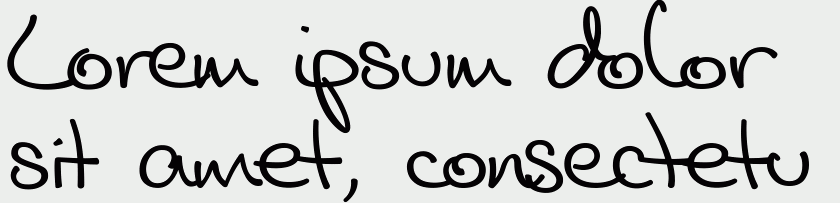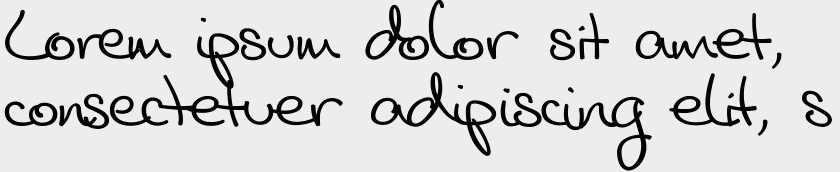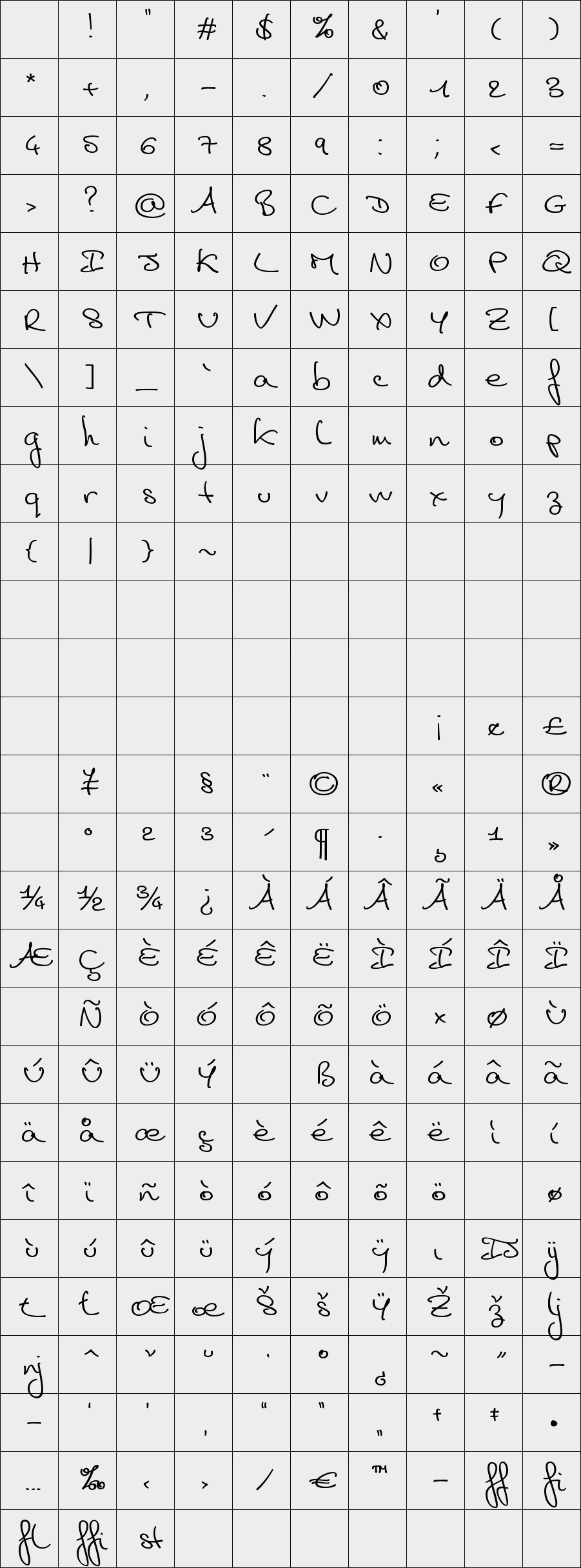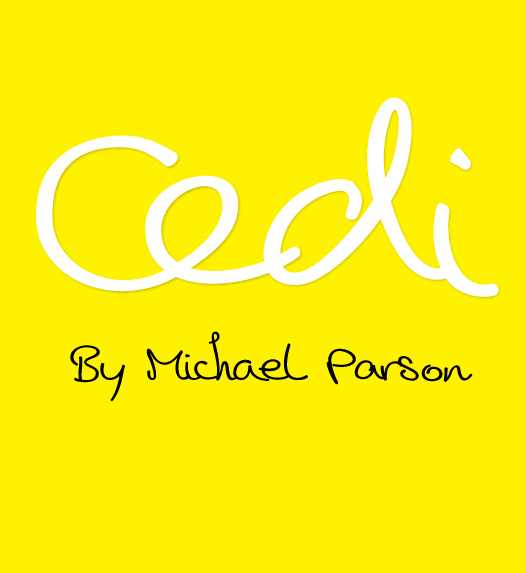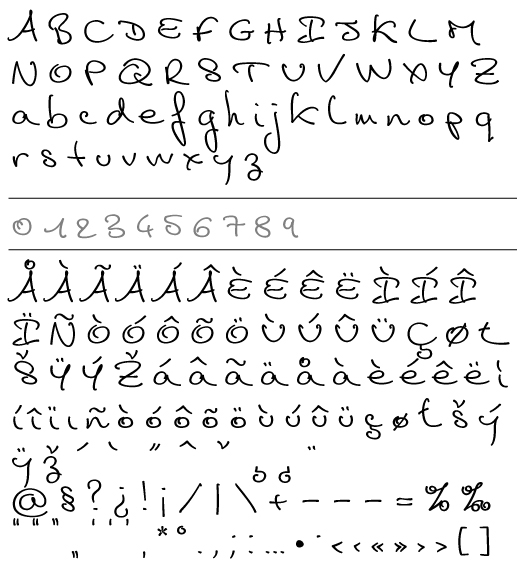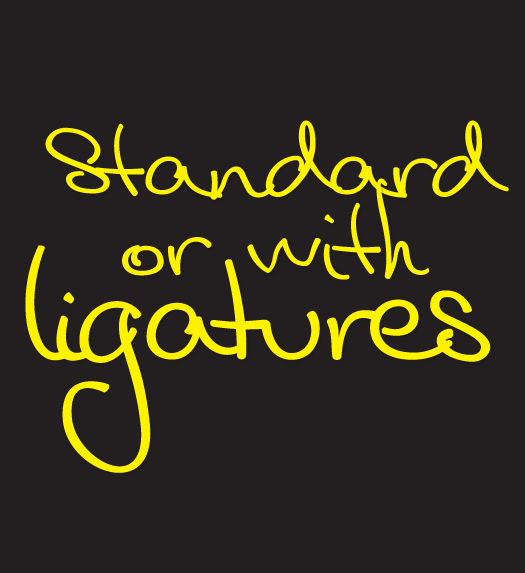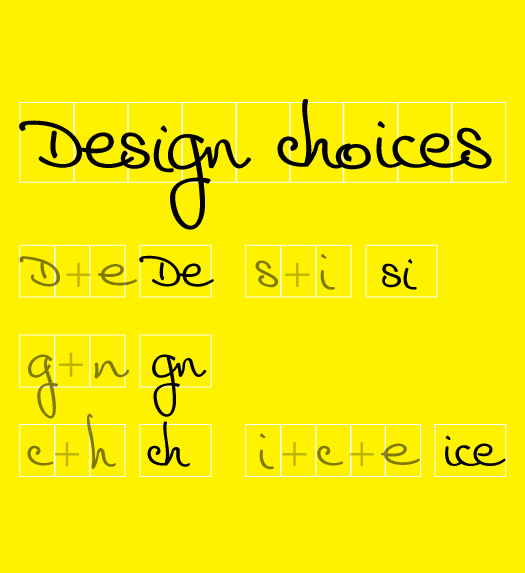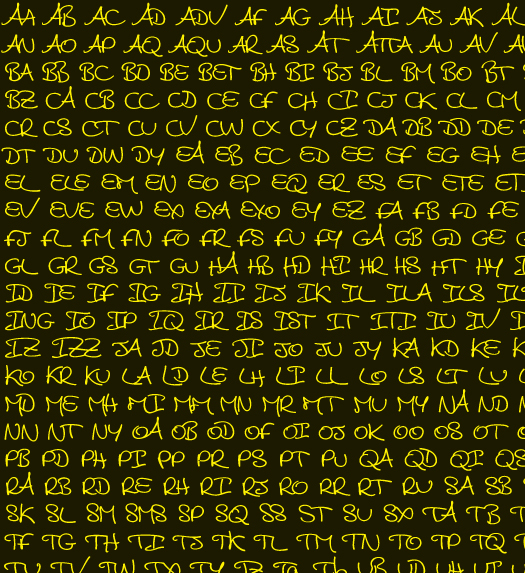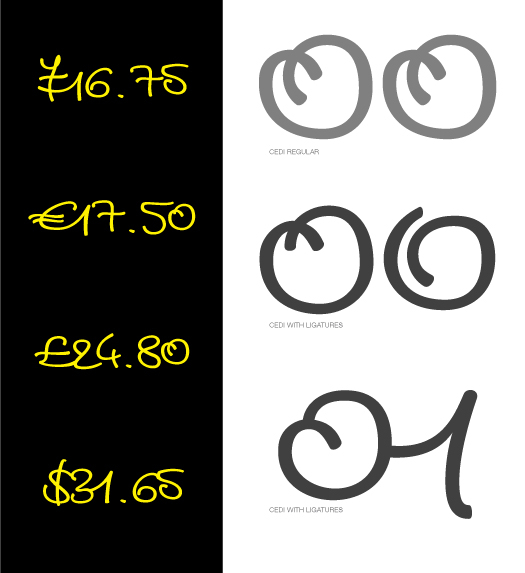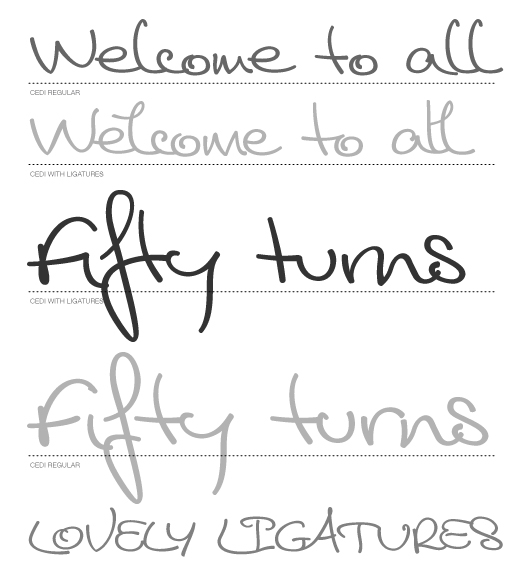
Cedi
/ Cedi regular
The Cedi Typeface is a single weight display font that is based on the fluid handwritten style of a work collegue, Cedric Roger. This design is a fast flowing script that is both lively and original yet equally legible due to it's defined letterforms.